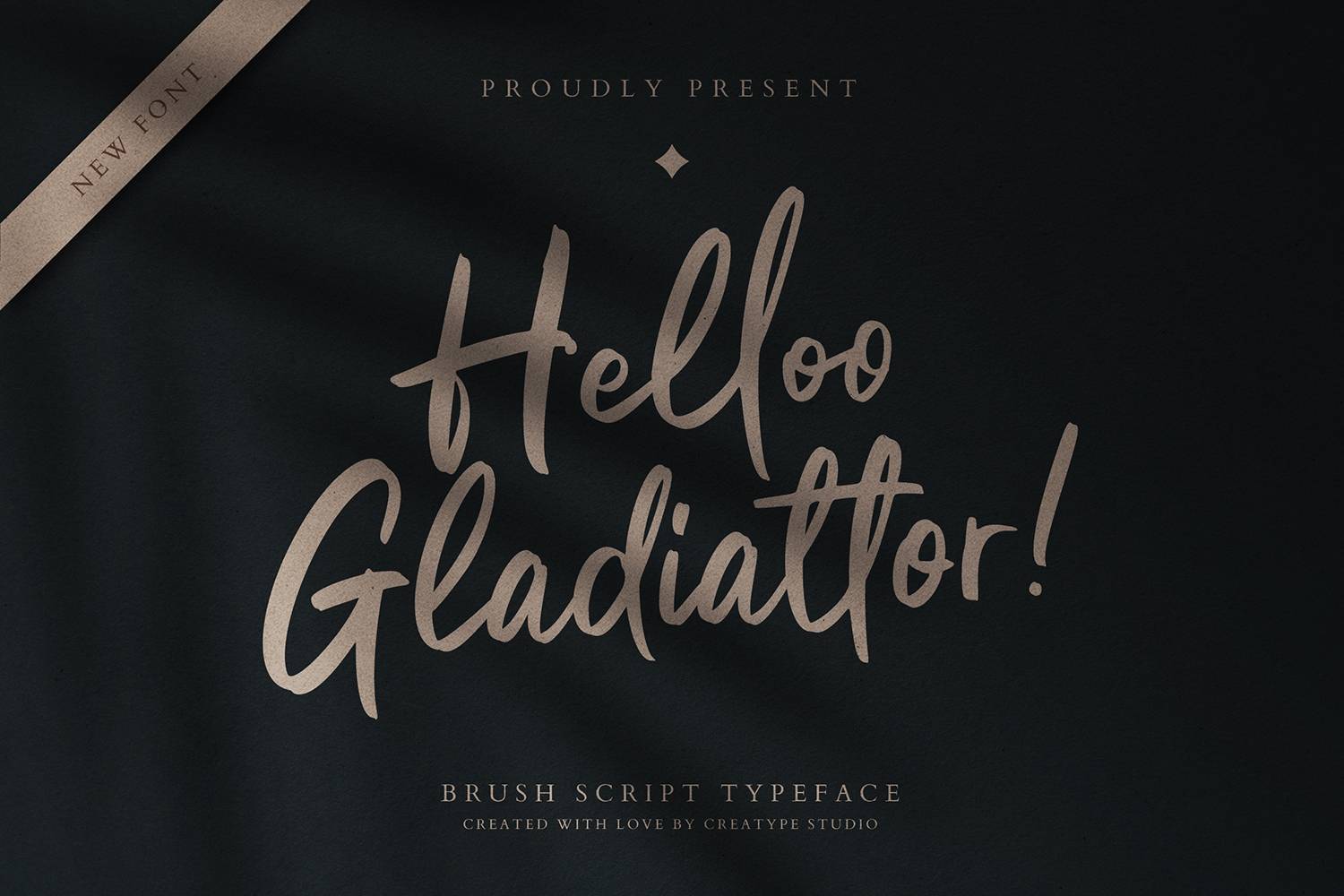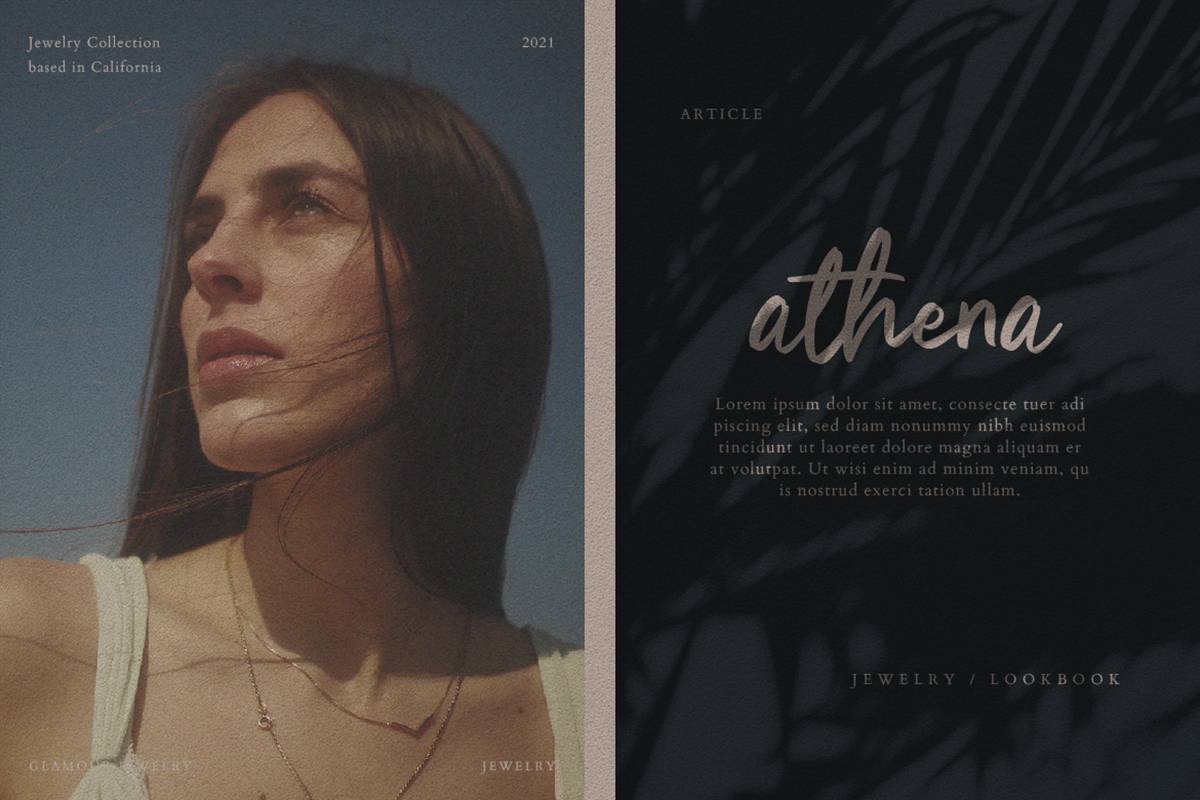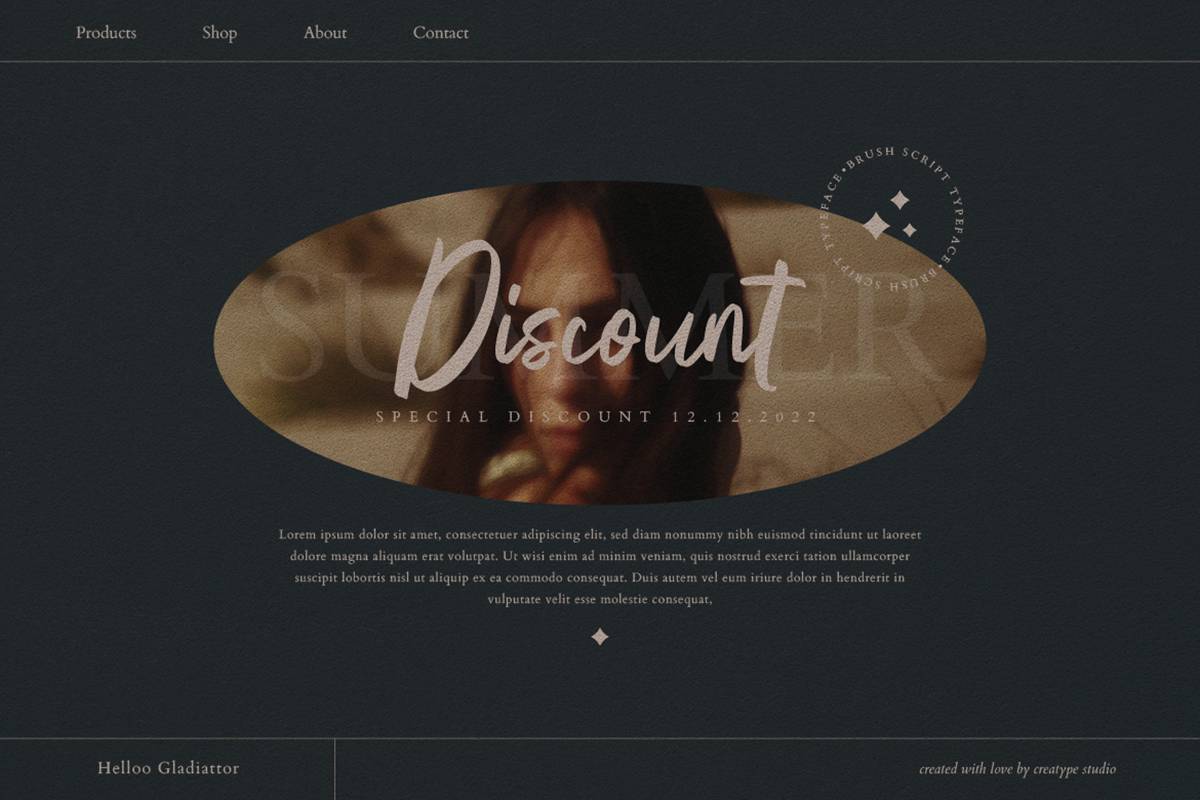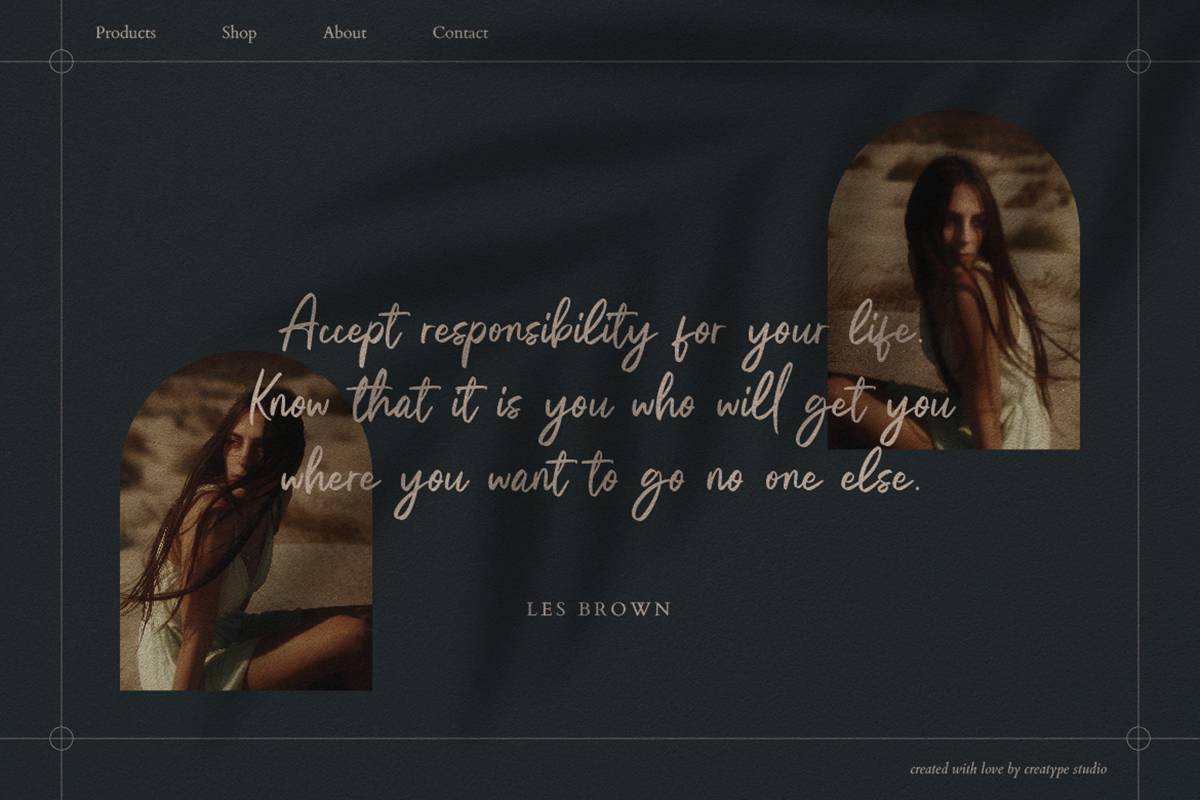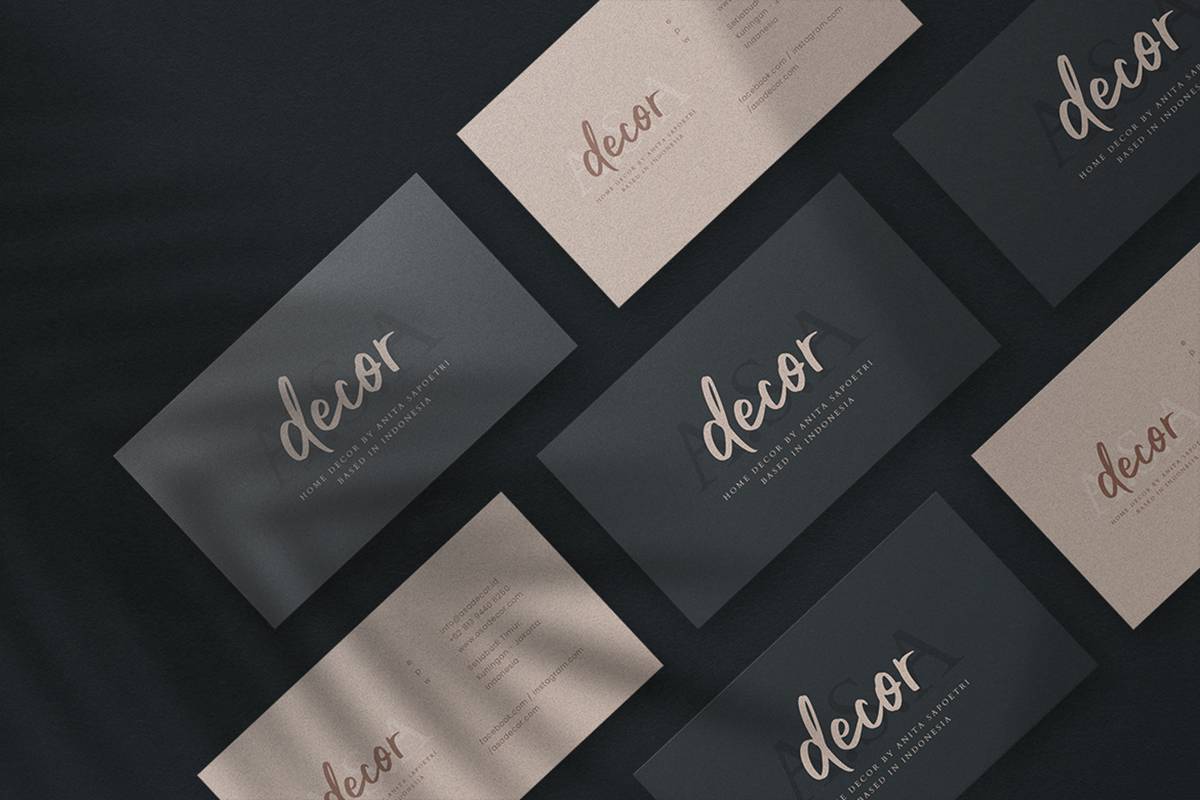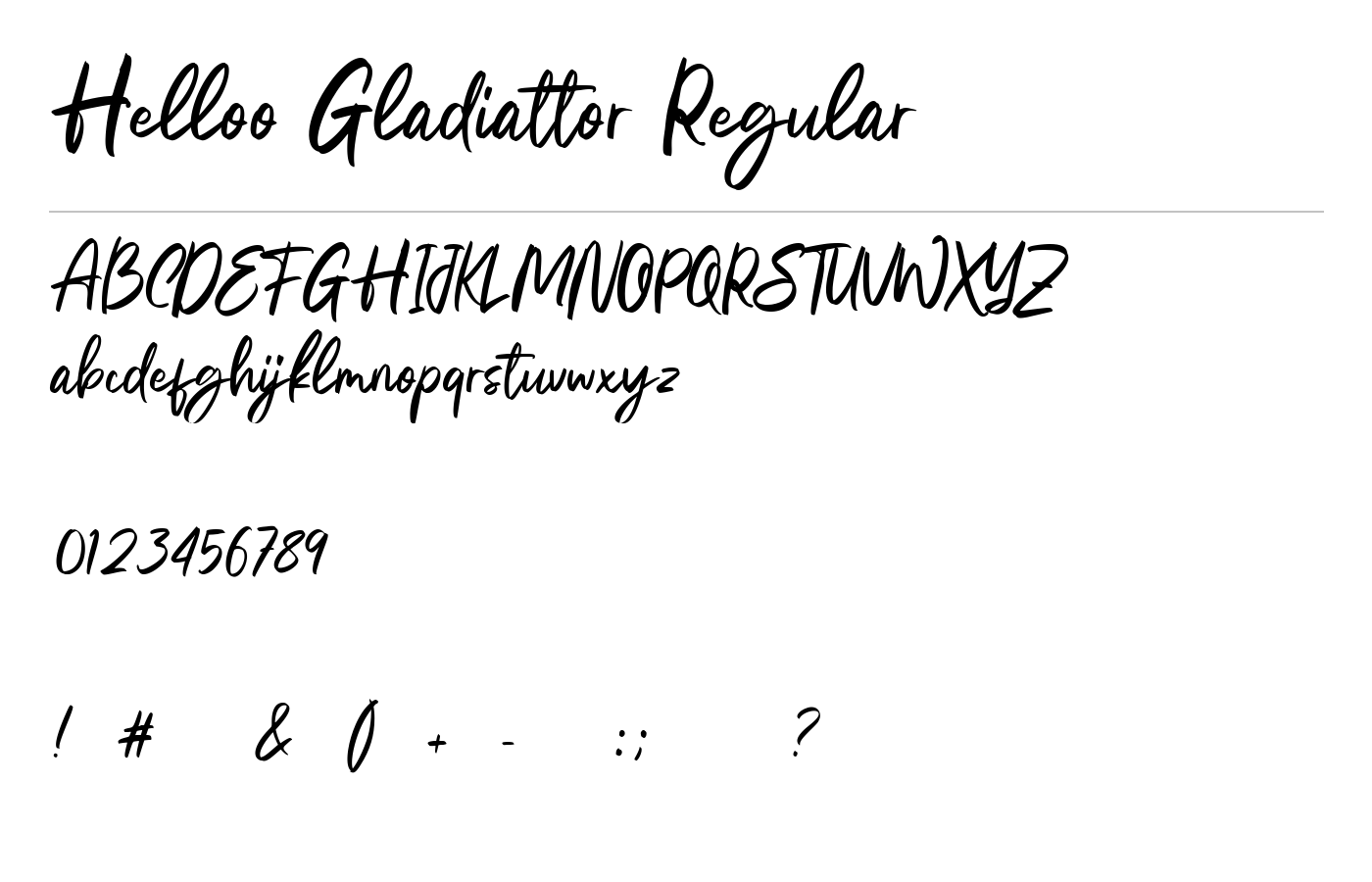
Helloo Gladiattor is a lively script font with a casual and handwritten feel, featuring smooth, flowing strokes that mimic natural brush lettering. Its moderate weight and tall x-height create an energetic yet readable style ideal for adding a personal, creative touch. This font works beautifully in branding, invitations, and social media graphics where a warm and approachable vibe is desired.
Helloo Gladiattor Font
About Helloo Gladiattor Font